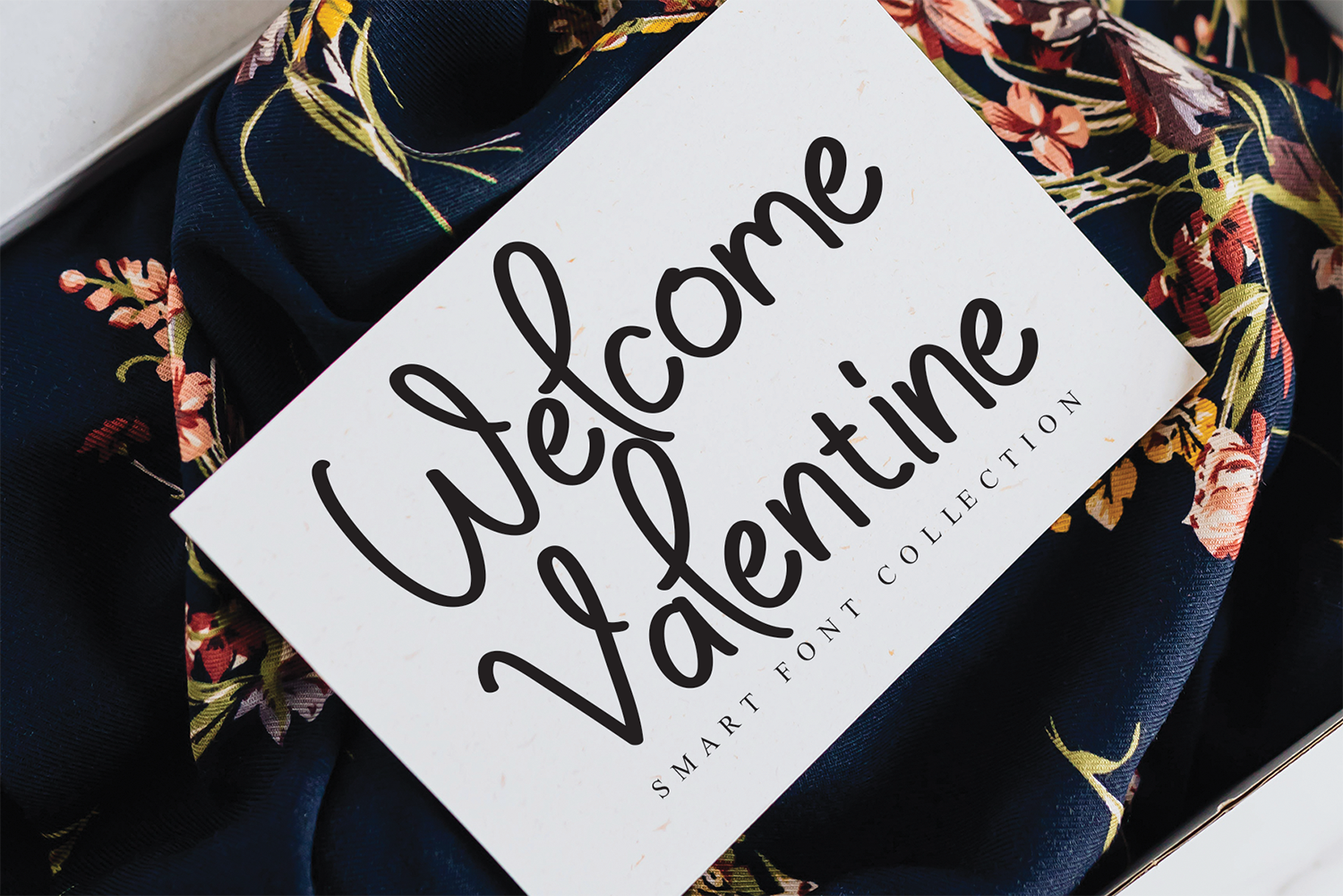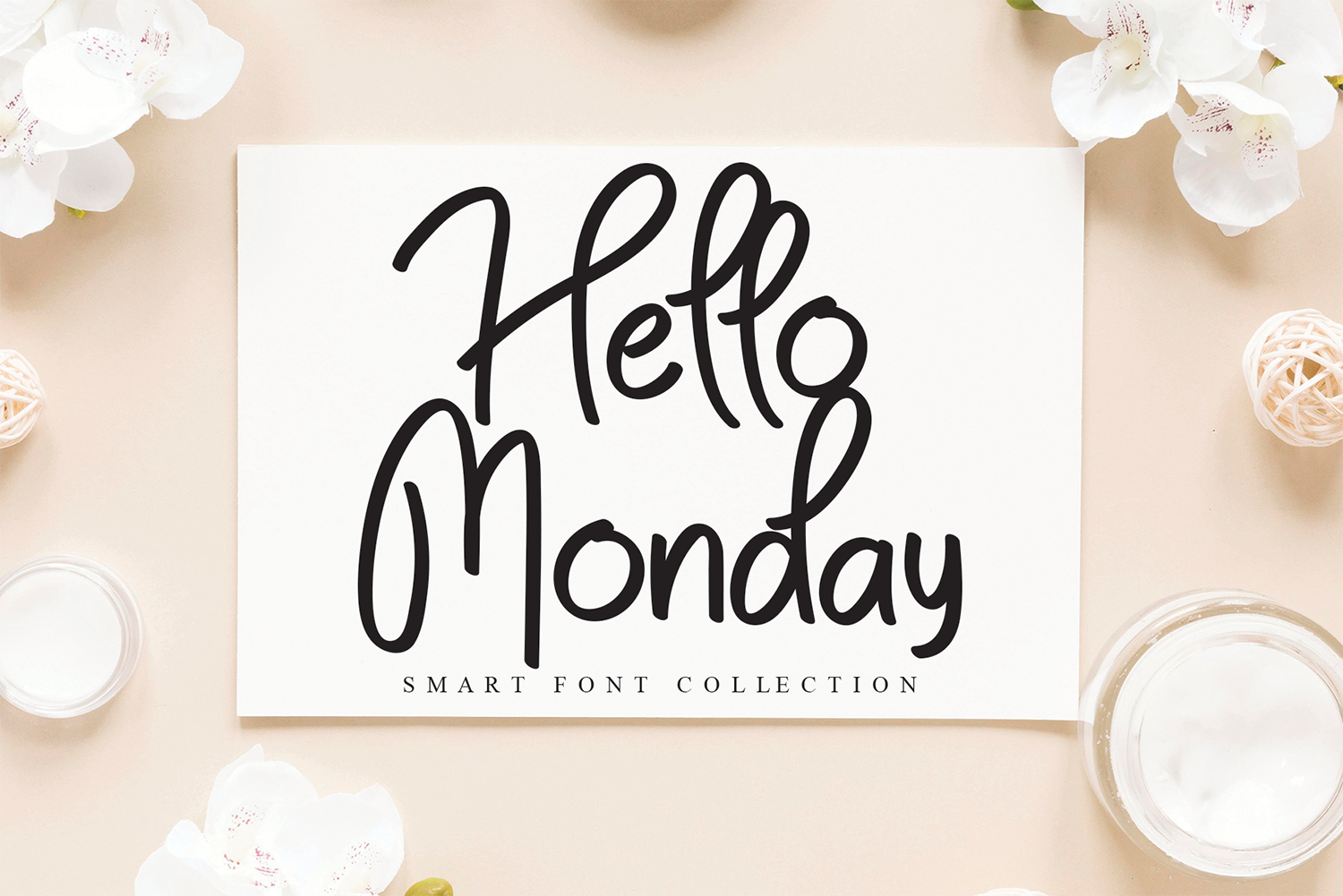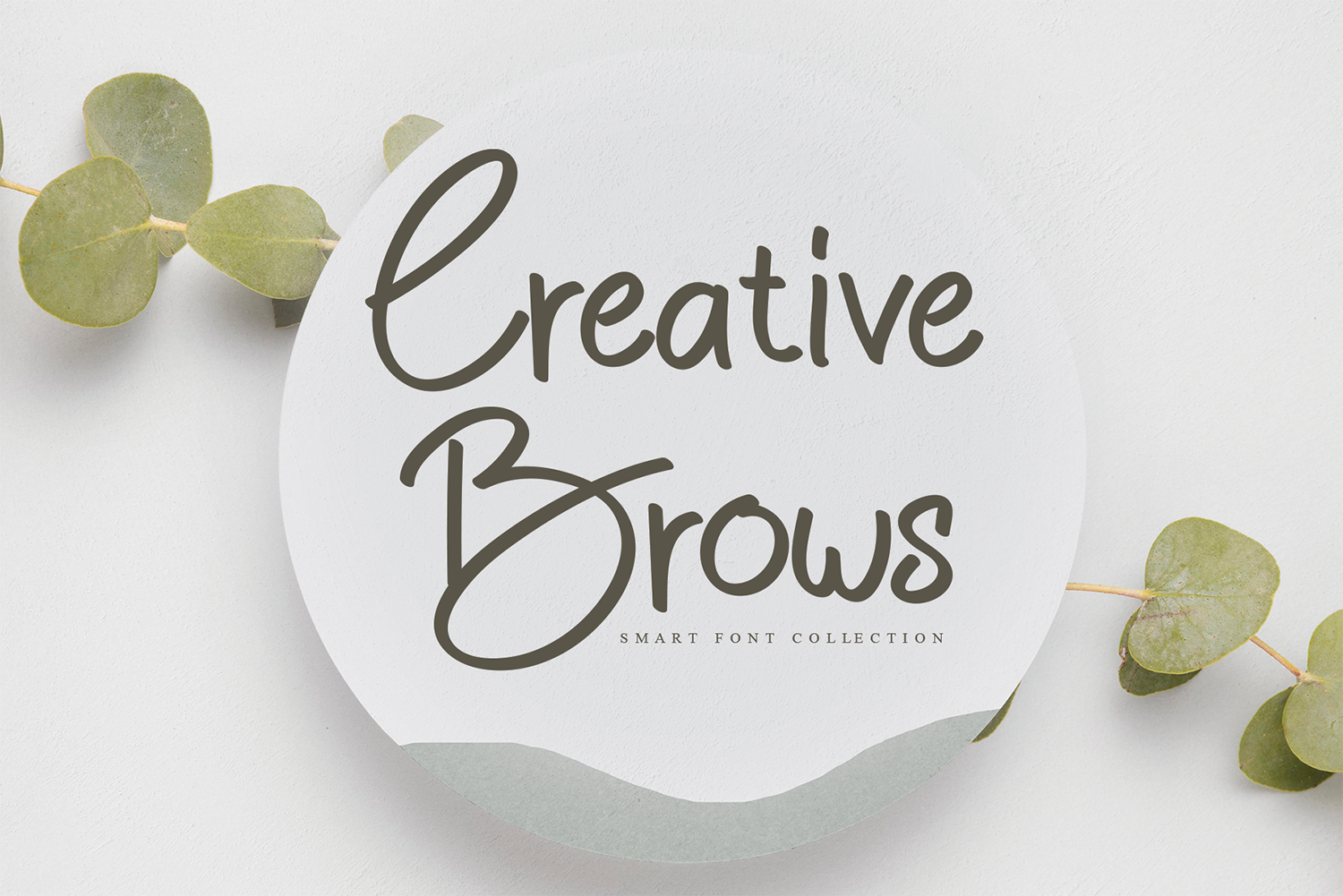
Brellanita Free Font
Brellanita Free Font emerges as a delightful, versatile handwritten font. Infused with warmth, romance, and cheerfulness, this font has the power to transform your project concepts into genuine works of art. Delve into the enchanting possibilities of this exquisite font and revel in its infinite variations. This free typeface was designed by a talentedΒ Scratchones Creative. If you like it don’t forget to check out the full version.